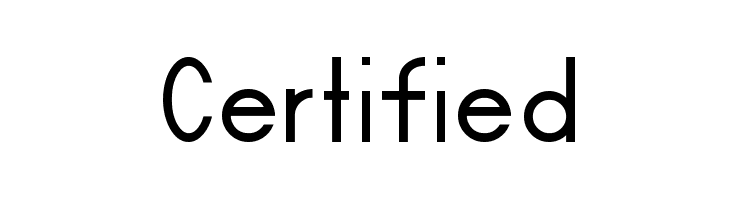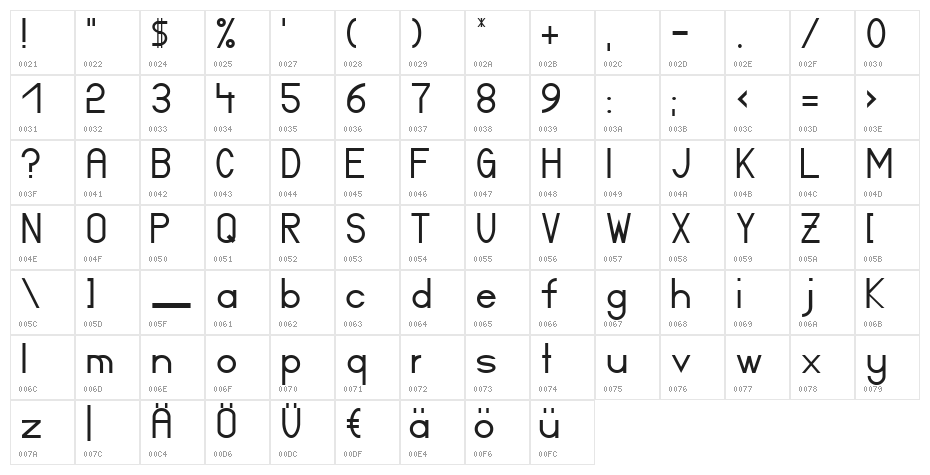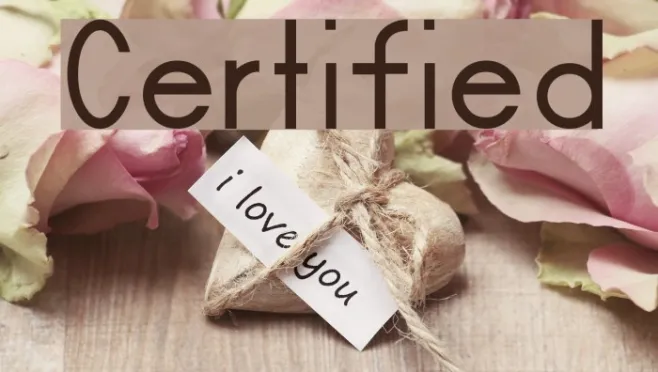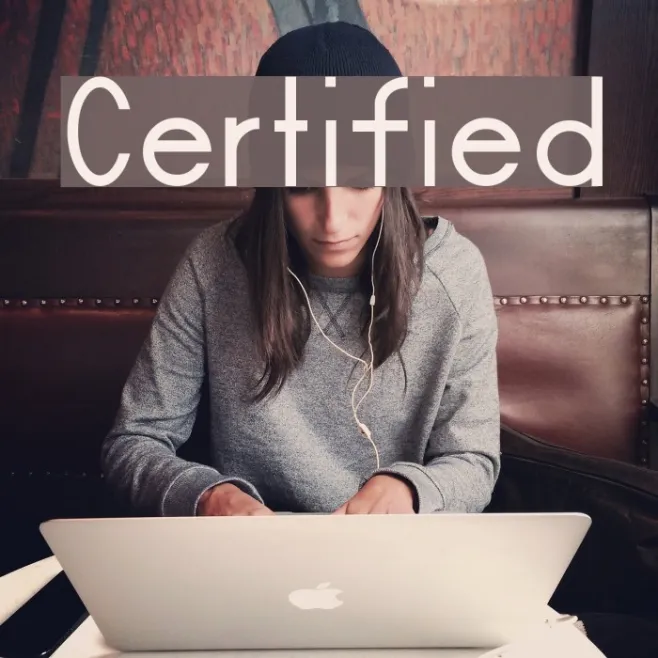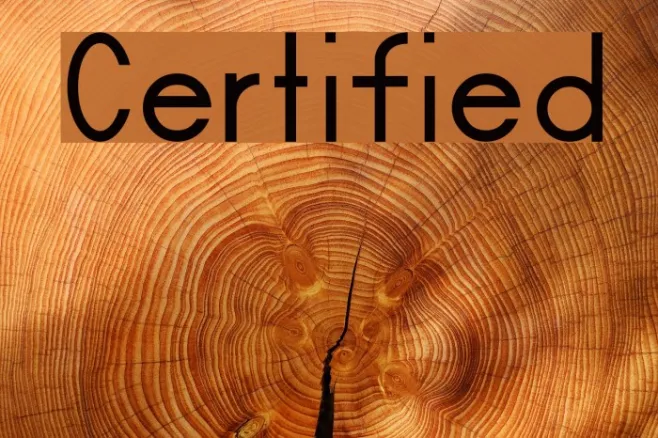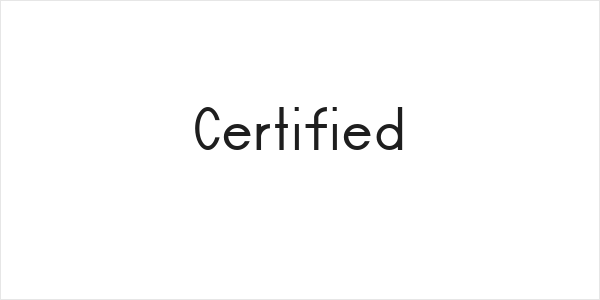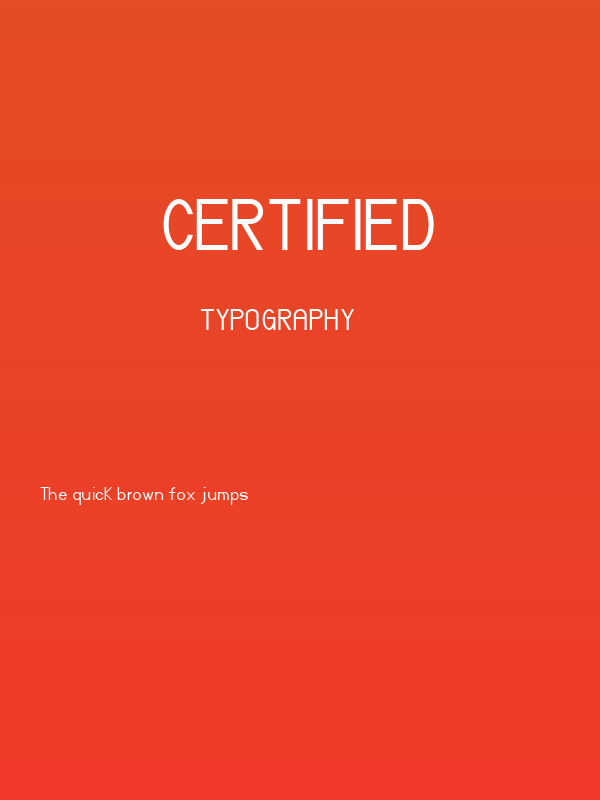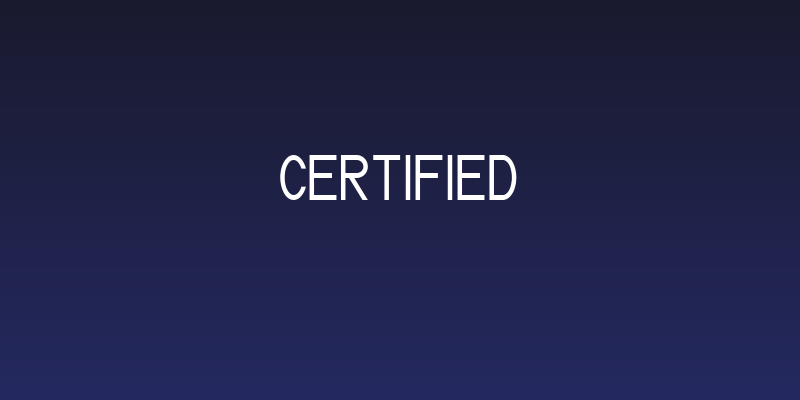
Certified Font
Certified Description
This font features a clean and modern sans-serif design, characterized by its geometric shapes and uniform stroke widths. The uppercase letters are bold and slightly condensed, giving a strong visual impact, while the lowercase letters maintain a consistent height and spacing, ensuring readability. The numerals are clear and distinct, matching the overall style of the alphabet. Special characters are well-integrated, maintaining the font's cohesive look. The font's simplicity and clarity make it versatile for various design applications, from digital to print media.
Use CaseHeadlines, Logos, Branding
Proposed ProjectsIdeal for branding, advertising, web design, and editorial layouts due to its clarity and modern appeal.